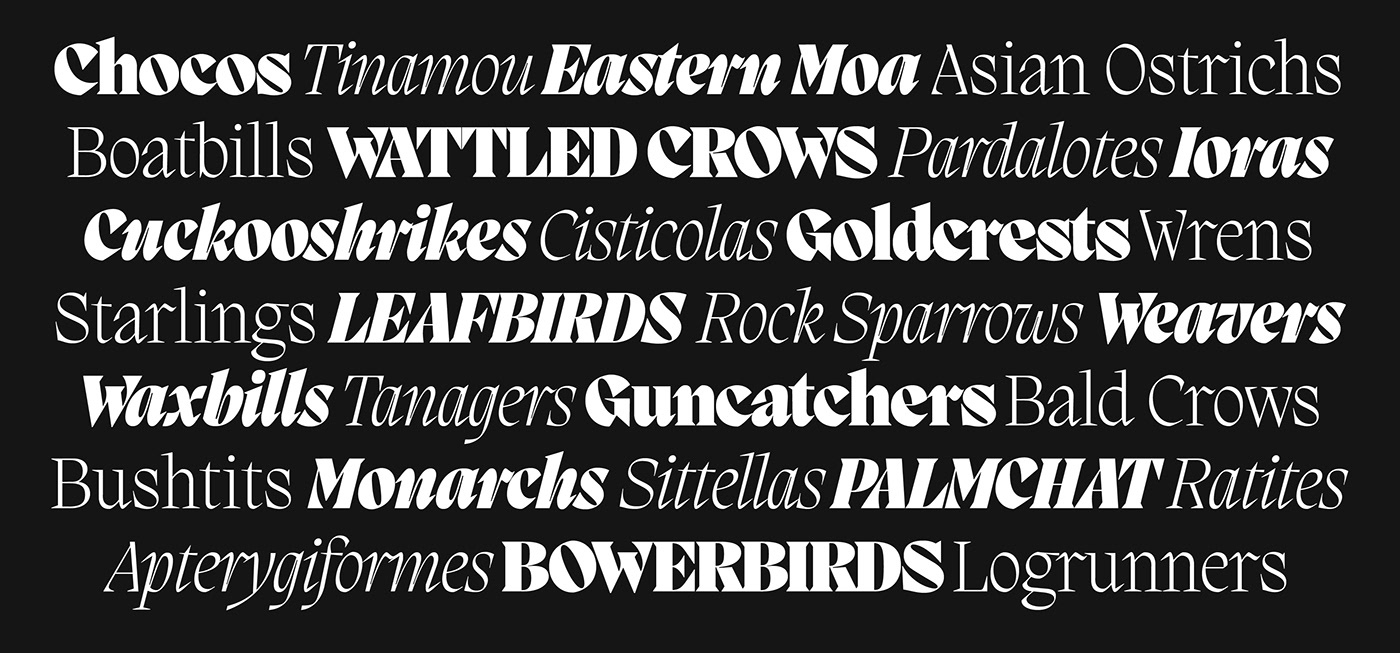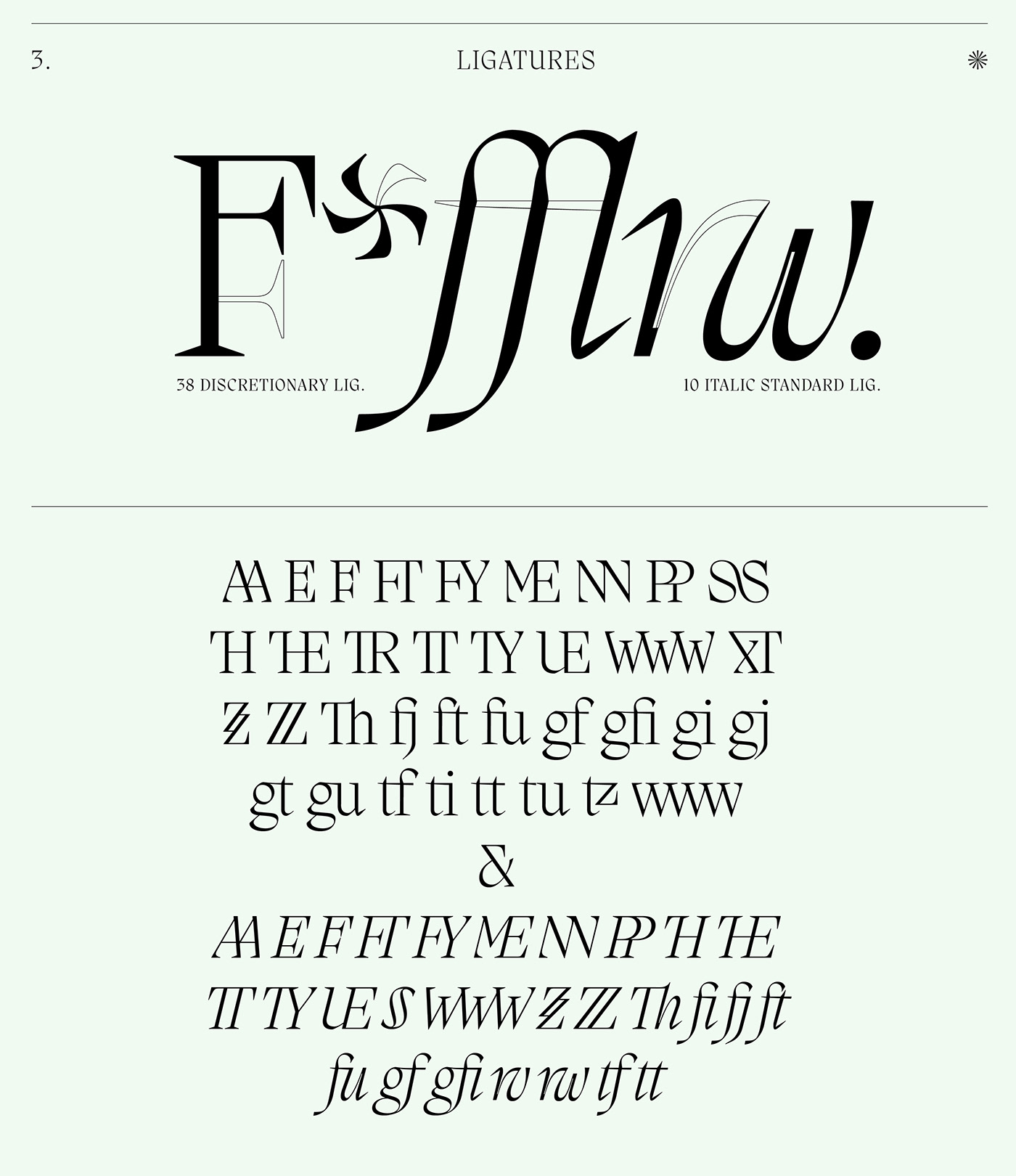
Migra - Free Font
MIGRA
Migra is a spiky serif typeface inspired by the features in migratory birds. Its weights span from an austere and elegant light cut to a hawkish and powerful black one.
Migra is designed by Morula Type for PangramPangram